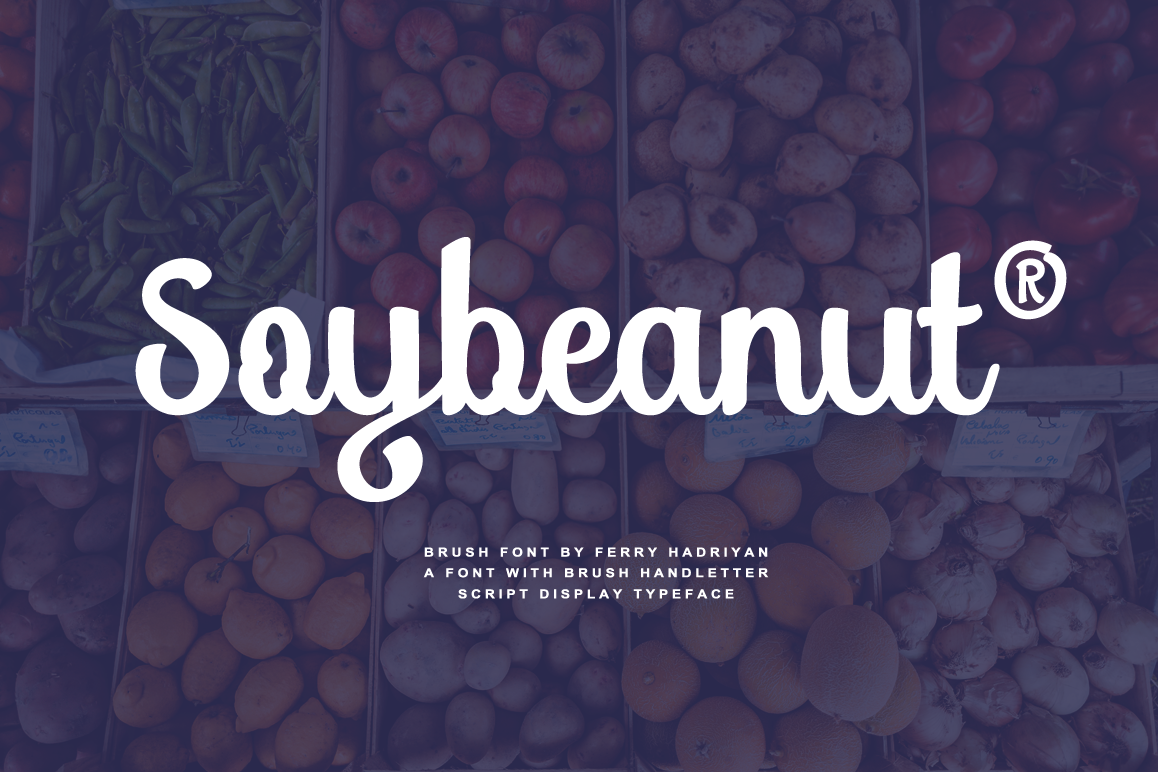
Soybeanut - Brush Script Font
Soybeanut is brush script font with authenthic style. Suitable for design, element design, wedding, event, t-shirt, logo, badges, sticker, and awesome work, etc...
Feauture Of The Font:
- Open Type Features Fonts
- Combination stylistic alternate fonts
- Standard Ligatures, Stylistic Set, Multilanguage Characters, etc
- Modern Brush Script
- PUA Encode
- Multilanguage Support
- Unique style fonts
- Easy customize